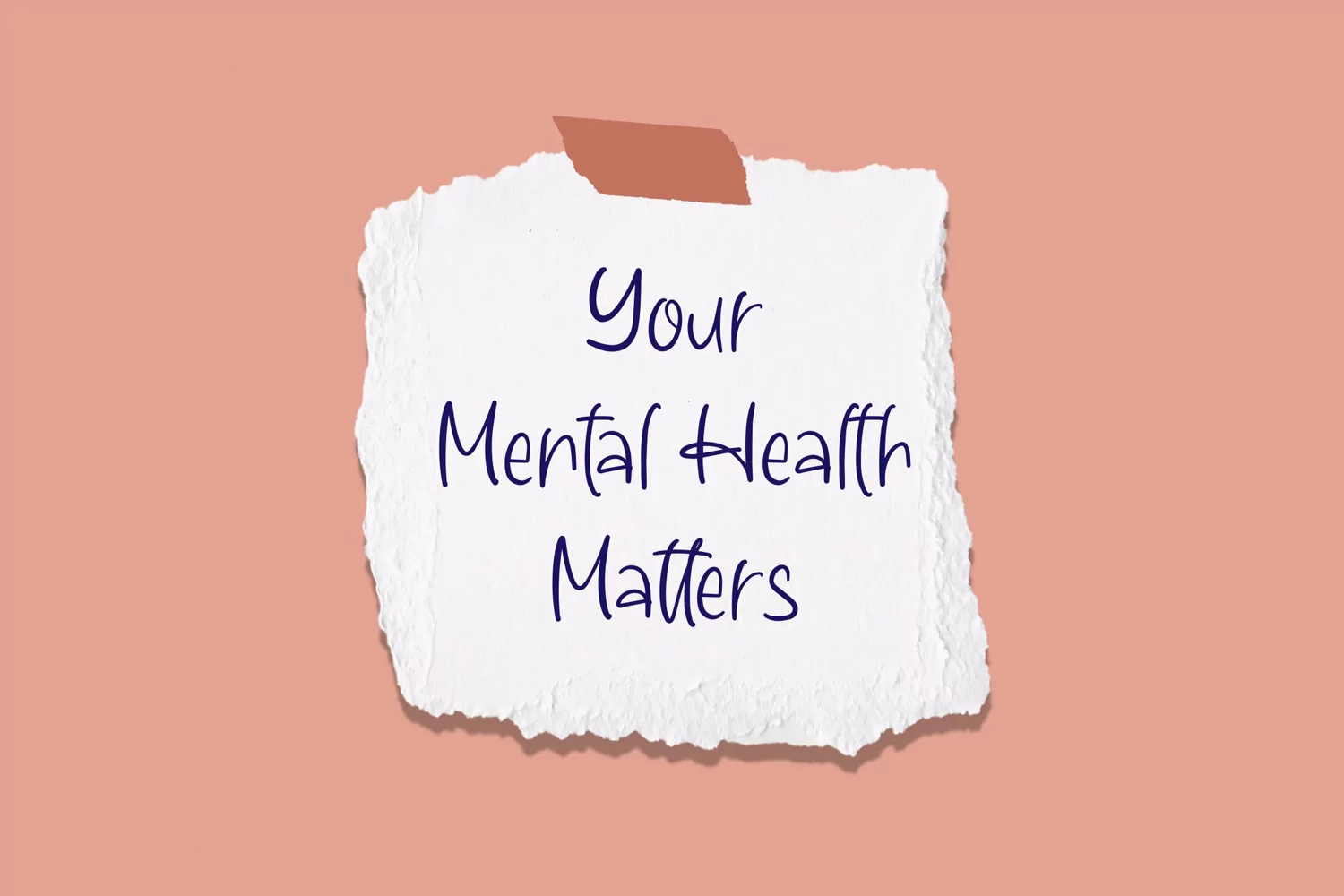
QuickNotes - Quick Handlettered Font that contain lowercase, uppercase, symbol, and also support multi language. There’s a lot ligatures in this font. This Font also comes with ligatures, alternates and many more. this font suitable for fashion, branding, catalog and other design what you want.
Quick Notes